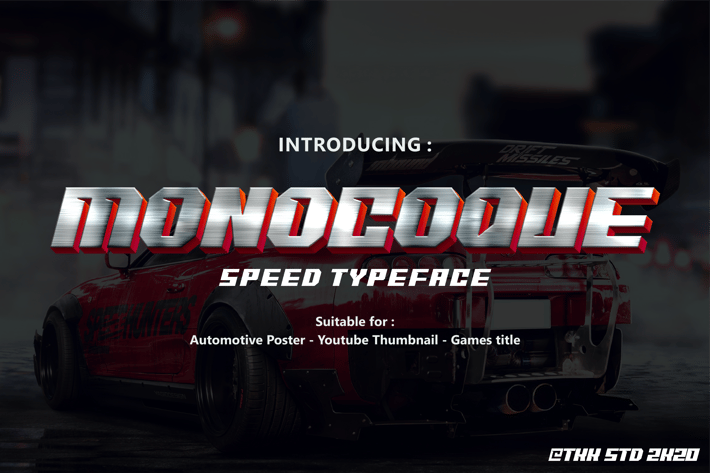
MONOCOQUE - Car Racing Gaming Font
MONOCOQUE – A High-Speed Font for Motorsport & Performance Branding
MONOCOQUE is a high-speed racing typeface built for action-packed visuals. With aerodynamic slanted strokes, squared counters, and compact spacing, it delivers a rush of adrenaline on every letter. Designed for bold and performance-driven design, its techno-mechanical structure echoes the engineering language of speed—ideal for motorsport branding, racing games, and futuristic visuals. With strong angular contrast and geometric sharpness, it brings an assertive yet sleek aesthetic into high-velocity compositions.
Whether you're designing a motorsport logo, game HUD, automotive ad, or a YouTube racing thumbnail, MONOCOQUE packs a punch that evokes thrill and power. Perfect for industries pushing movement, energy, and competition—this font amplifies excitement in speed-themed branding, poster layouts, event banners, tire brands, or futuristic user interfaces. Its sense of force and structure connects emotionally with those drawn to racing culture, high-speed design, and competitive gaming.
Key Features :
Race-Inspired Dynamics
- Derived from motorsport and aerodynamic design, great for speed-themed compositions and racing UI/UX.
Compact & Powerful Letterforms
- Sharp edges, square-cut terminals, and bold rhythm ensure clarity at high speeds and across screen sizes.
Game & Tech Friendly
- Perfect for esports overlays, race games, app titles, and vehicle mod branding.
Visual Impact Under Pressure
- Optimized for high-contrast environments and tight headline spaces, giving designers maximum control and force.